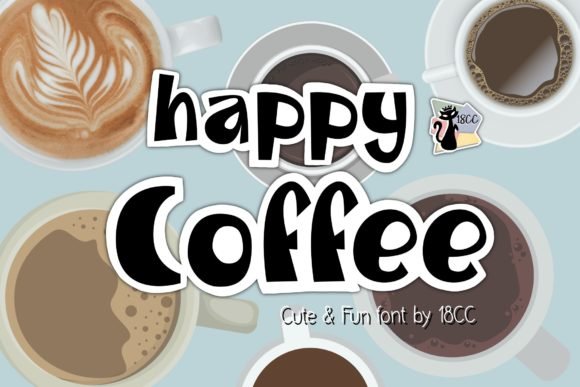
The Perfect Cup of Creativity
Do you remember that moment when you stumbled upon the perfect font, and your design just came together? It’s like finding the perfect coffee blend – it gives you the boost you need to create something amazing. For designers, that perfect font can make all the difference between a good design and a great one.
That’s where the Happy Coffee Font comes in – a trendy, chic, and fun-looking display font that’s perfect for bringing a touch of joy to your designs. Whether you’re working on cartoon-related projects, children’s games, or just need a font that screams fun, Happy Coffee Font is a great choice. With its unique style, it’s no wonder why designers are falling in love with this font.
Happy Coffee Font Key Features
- Font Family: A unique, modern sans-serif font designed to evoke the feeling of a happy cup of coffee.
- Character Set: Includes a wide range of characters, including uppercase and lowercase letters, numbers, punctuation marks, and special characters.
- Language Support: Supports multiple languages, including English, Spanish, French, German, Italian, Portuguese, and more.
- Unique Characteristics: Features a distinctive, rounded design with a subtle coffee-themed twist, making it perfect for branding and marketing materials related to the coffee industry.
Happy Coffee Font Review
As a designer, I was excited to dive into the Happy Coffee Font and see what it had to offer. Overall, I found it to be a fun and playful font that’s perfect for coffee shops, bakeries, or any other business that wants to add a touch of warmth and friendliness to their branding.
- The font’s bold and italic styles add a nice touch of personality to headings and titles.
- The font is highly legible, making it perfect for body text and menus.
- The Happy Coffee Font is available in a range of weights, from light to bold, giving designers plenty of flexibility when it comes to choosing the perfect style for their project.
Limitsations ⚠️
- The font may not be suitable for formal or professional branding, as it’s a bit too playful and casual.
- The font’s limited language support may be a concern for designers who need to create content in languages other than English.
- The font’s lack of a true italic style may be a disappointment for designers who prefer a more traditional italic look.
Overall, I would give the Happy Coffee Font 4 out of 5 stars. It’s a great addition to any designer’s font library, and I can see it being used in a wide range of creative projects. However, it may not be the best choice for every project, so be sure to weigh the pros and cons before making a decision.
Tips for Getting the Most Out of the Happy Coffee Font
To maximize the impact of the Happy Coffee Font, use it in combination with visually appealing graphics and colors. Experiment with different font sizes and colors to create a unique visual identity.
The Happy Coffee Font is ideal for use in:
- Coffee shop menus and branding
- Food and beverage marketing materials
- Special event invitations and announcements
Alternatives to Happy Coffee Font
The Happy Coffee Font is a popular font among designers due to its friendly and approachable feel. However, there are other alternatives that can provide a similar look and feel while offering unique characteristics. Here are a few options to consider:
Great Vibes is a modern script font that is perfect for creating a fun and energetic atmosphere. It’s ideal for use in logos, social media graphics, and advertising materials. Compared to Happy Coffee Font, Great Vibes has a more playful and dynamic feel, making it suitable for younger audiences. It also has a wider range of ligatures and swashes, allowing for more creative freedom.
Yes, the Happy Coffee Font is a highly customizable font with a wide range of OpenType features, including ligatures, swashes, and stylistic sets. You can access these features in most design applications, such as Adobe Creative Cloud, using the font’s built-in menus and panels.